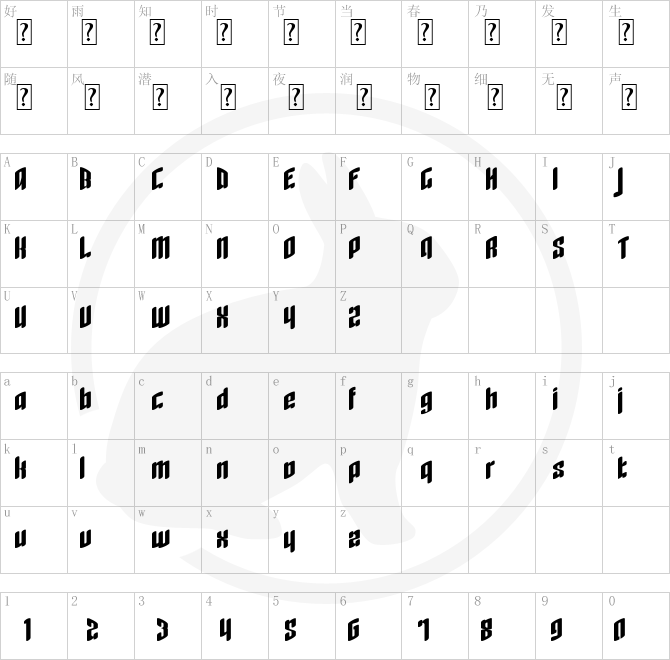
RageQuit_bold_easternblock_v12.ttf is a very beautiful artistic font, RageQuit_bold_easternblock_v12.ttf is widely used in the design and printing of various books and pictures,RageQuit_bold_easternblock_v12.ttf has a strong visual impact,RageQuit_bold_easternblock_v12.ttf is a commonly used font in newspapers, magazines and books, and is used in posters, e-commerce Poster design, store design, logo design, font design and other fields.RageQuit_bold_easternblock_v12.